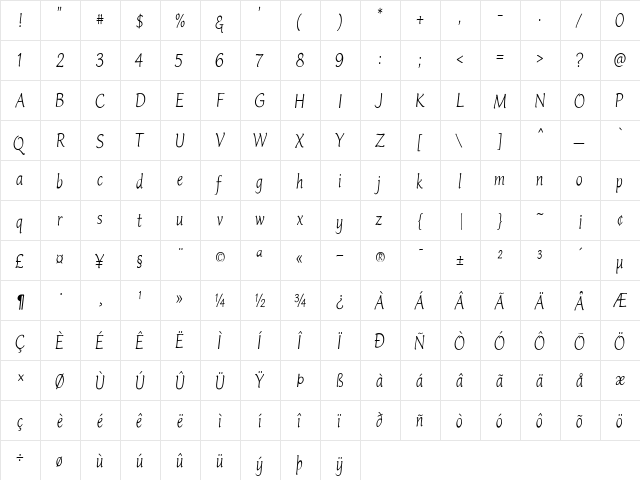
Italican Oblique Condensed Regular Font Preview
Design Context for Italican Oblique Condensed Typeface
Italican Oblique Condensed offers clean, dependable letterforms without strong stylistic allegiance, making it a practical choice for designers who need flexibility. Its italic angle brings a sense of urgency and motion to the letterforms. The condensed width makes it efficient for tight spaces without sacrificing legibility.
Pro Tip: Use Italican Oblique Condensed for emphasis, pull quotes, and subheadings where its slanted energy can add rhythm to the layout.